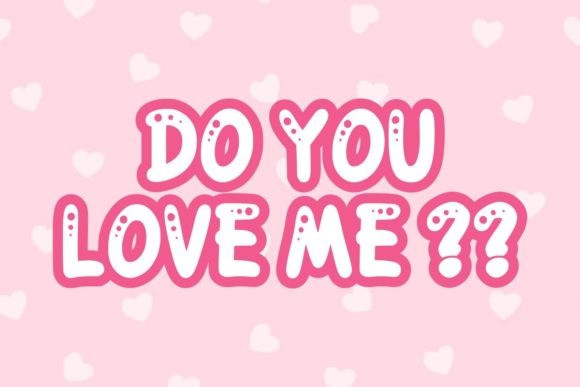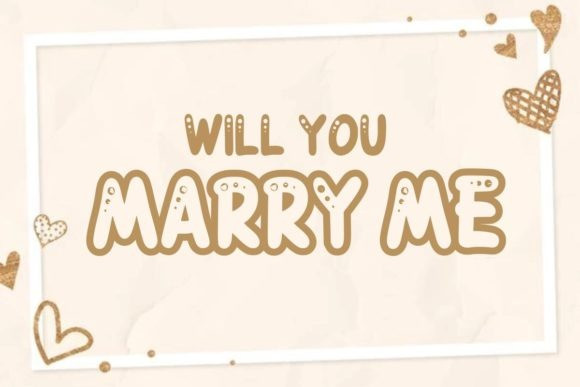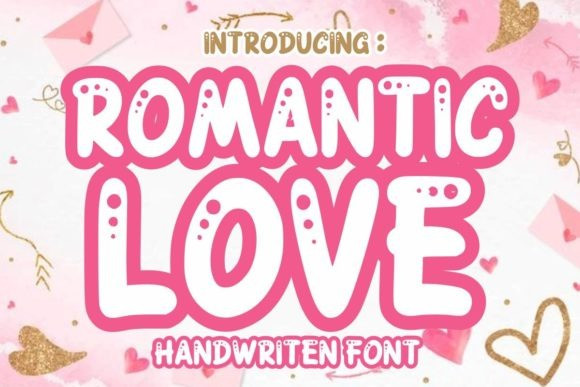
Romantic Love Font
Romantic Love Display Font was inspired by playful, love, bouncy romantic typography. This font is perfect for a design that makes it more attractive and chic.